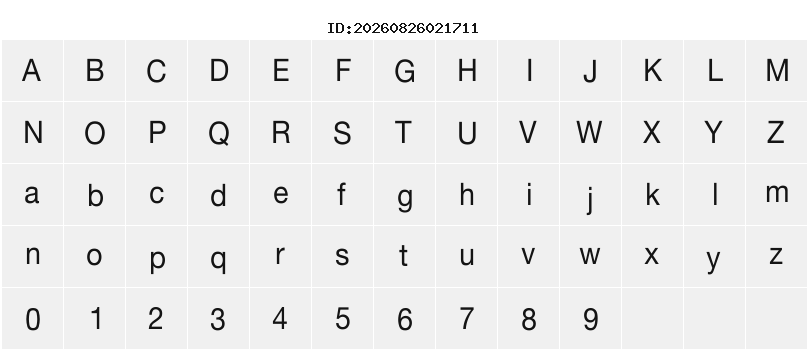
SD_Gothic M Preview
• Font Name: SD_Gothic M
About SD_Gothic M.ttf
SD_Gothic M.ttf is a modern, elegant sans-serif font designed for ultimate readability and visual harmony. Perfect for branding, headlines, web design, and print materials.